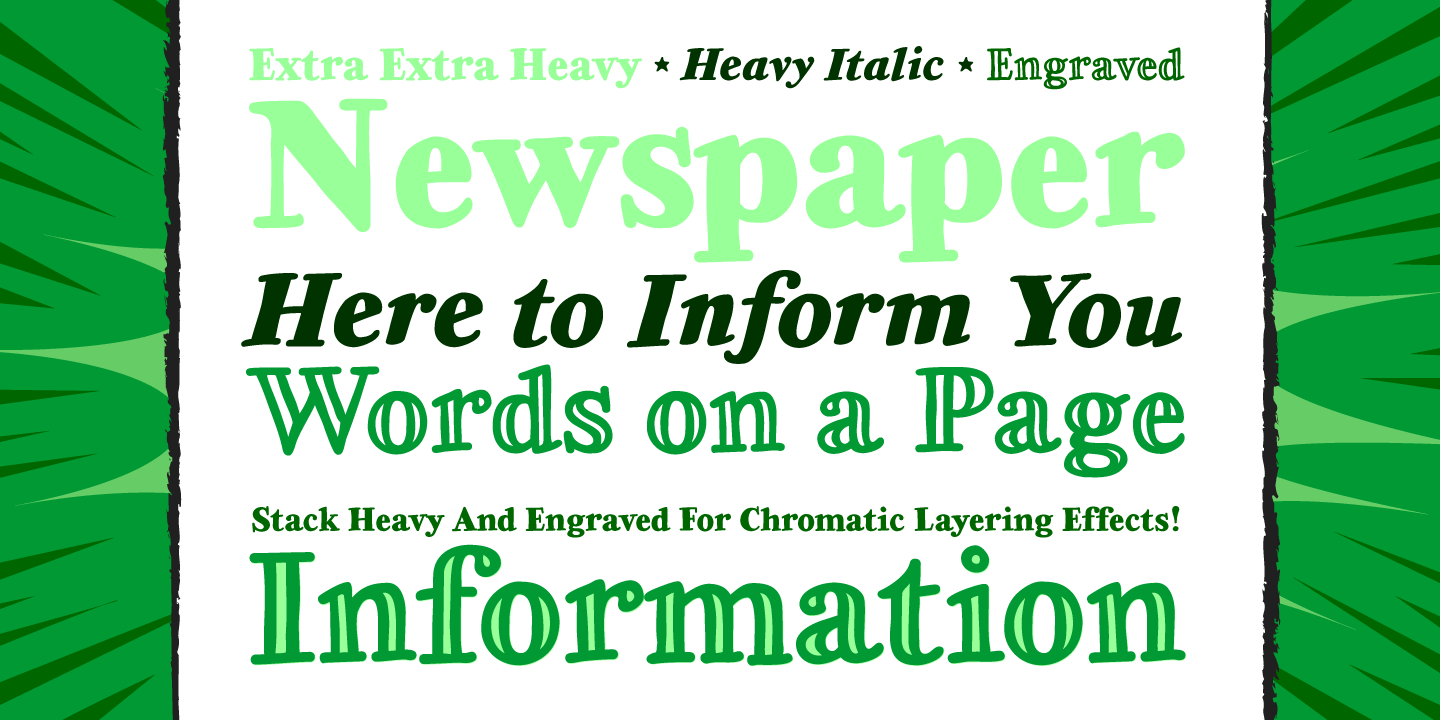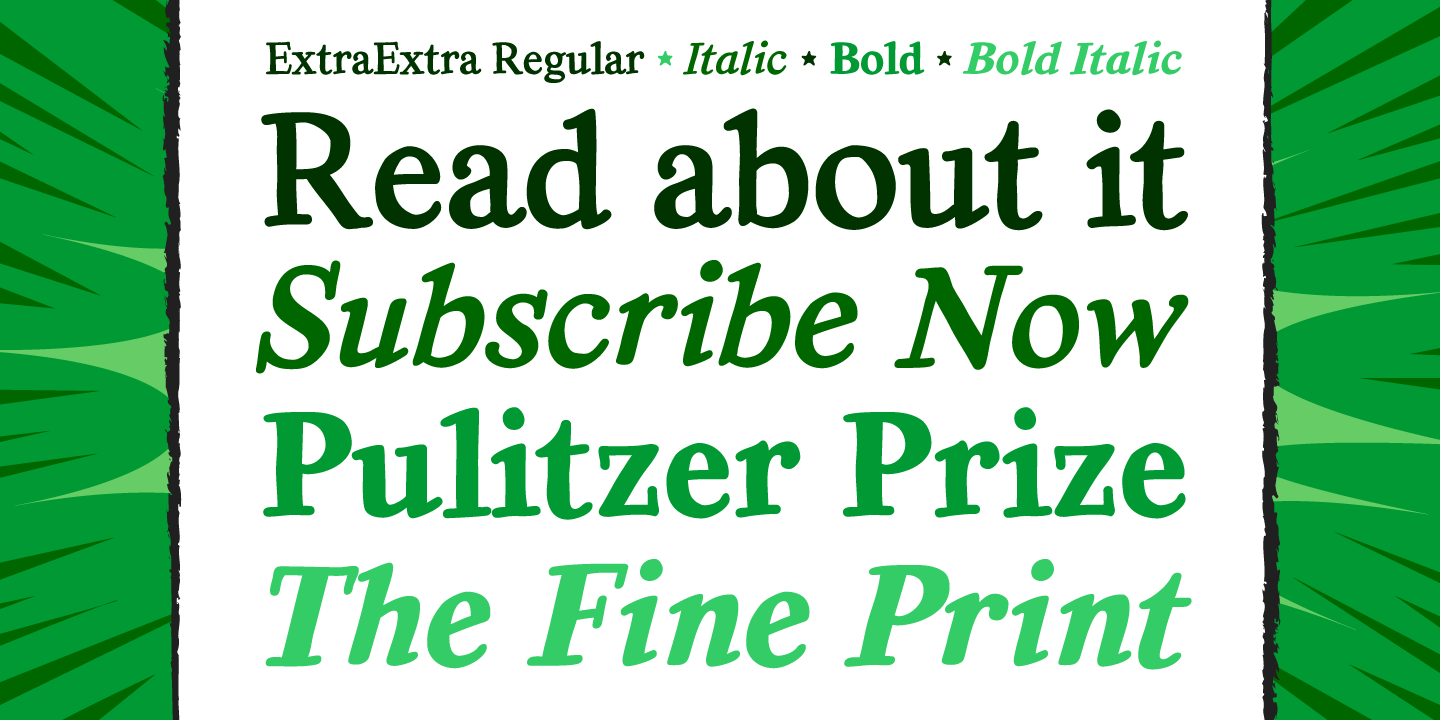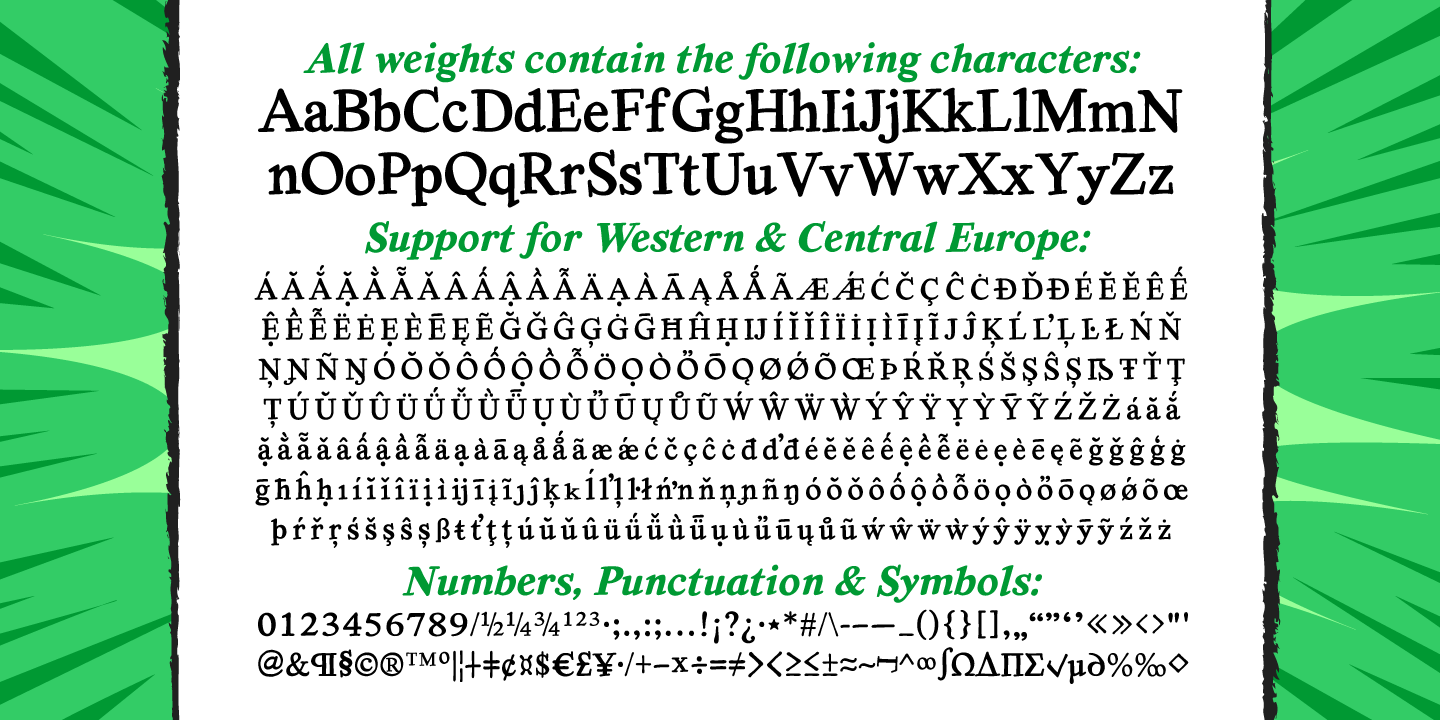
Extra Extra
The Times are a changin' -- comic book letterers everywhere can say a font farewell to typesetting the front pages of Planets and Bugles in Helvetica, Verdana or Gill Sans! Superhero's Pal, Johnny "Roshell" Olsen, was up all night writing copy for the late-night edition, making sure that your newspaper headlines and copy have a warm, pen lettered look... some might say a Rosen-glow!
Put a little Extra Extra in your bylines and maybe there's a Pulitzer and an Eisner in your future!